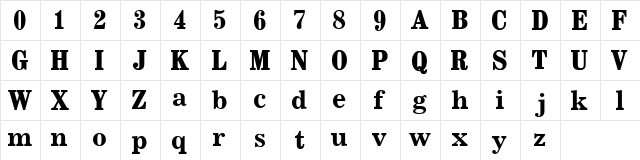
Century-Richardson Regular
Design Context for Century-Richardson Typeface
Century-Richardson is a composed and adaptable typeface that performs quietly and consistently across a wide range of design contexts.